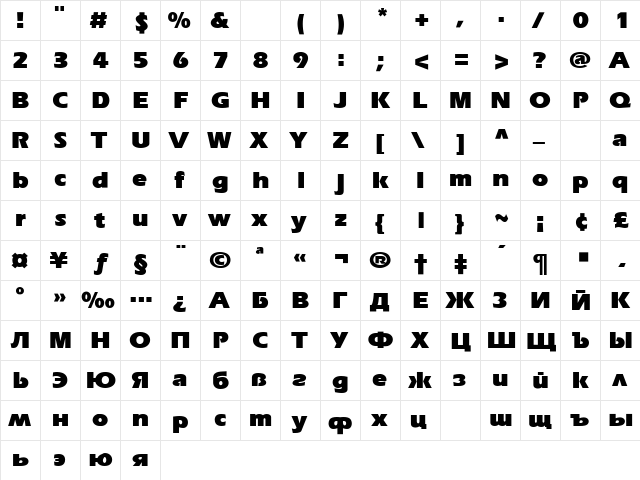
Eri-Black Regular
Design Context for Eri-Black Typeface
Eri-Black takes a measured approach to typography — its balanced proportions and neutral character make it a reliable workhorse for both digital and print work.